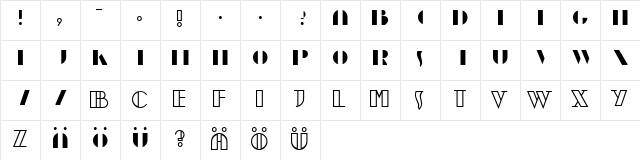
moebius Regular
| Foundry | Peter Wiegel |
| Designer | Peter Wiegel |
Design Context for moebius Typeface
moebius is a composed and adaptable typeface that performs quietly and consistently across a wide range of design contexts.